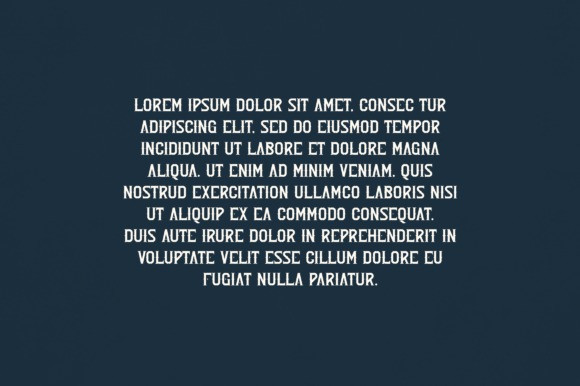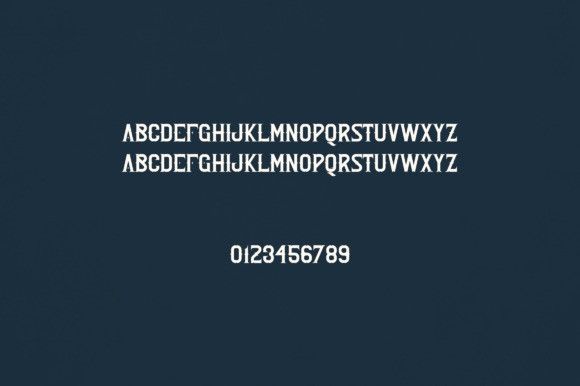
Alden Font
Alden Font is an elegant and versatile display font that will make your typography truly unique! It will enchant every logo, branding, headline, or plain text!